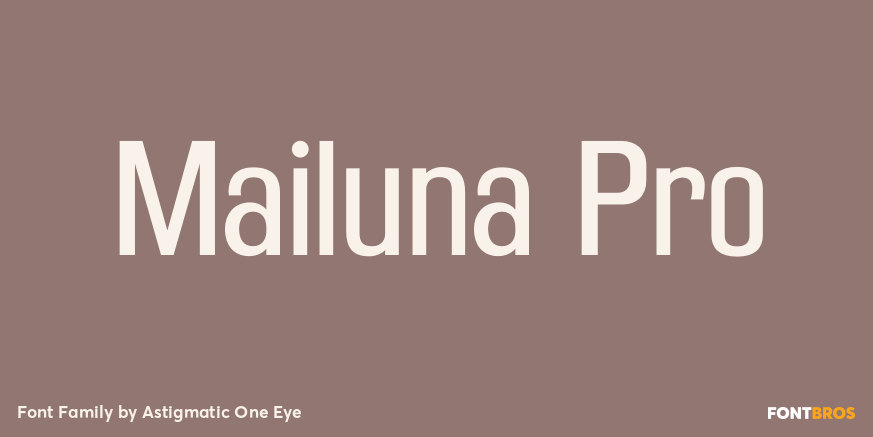
Mailuna Pro
About Mailuna Pro
A family of gothic typefaces of weight and oblique stature, Mailuna Pro AOE\’s letterforms find themselves on a line between modern and historical gothic styles. Mailuna Pro finds itself in the visual company of vintage transportation roll signs, wood…